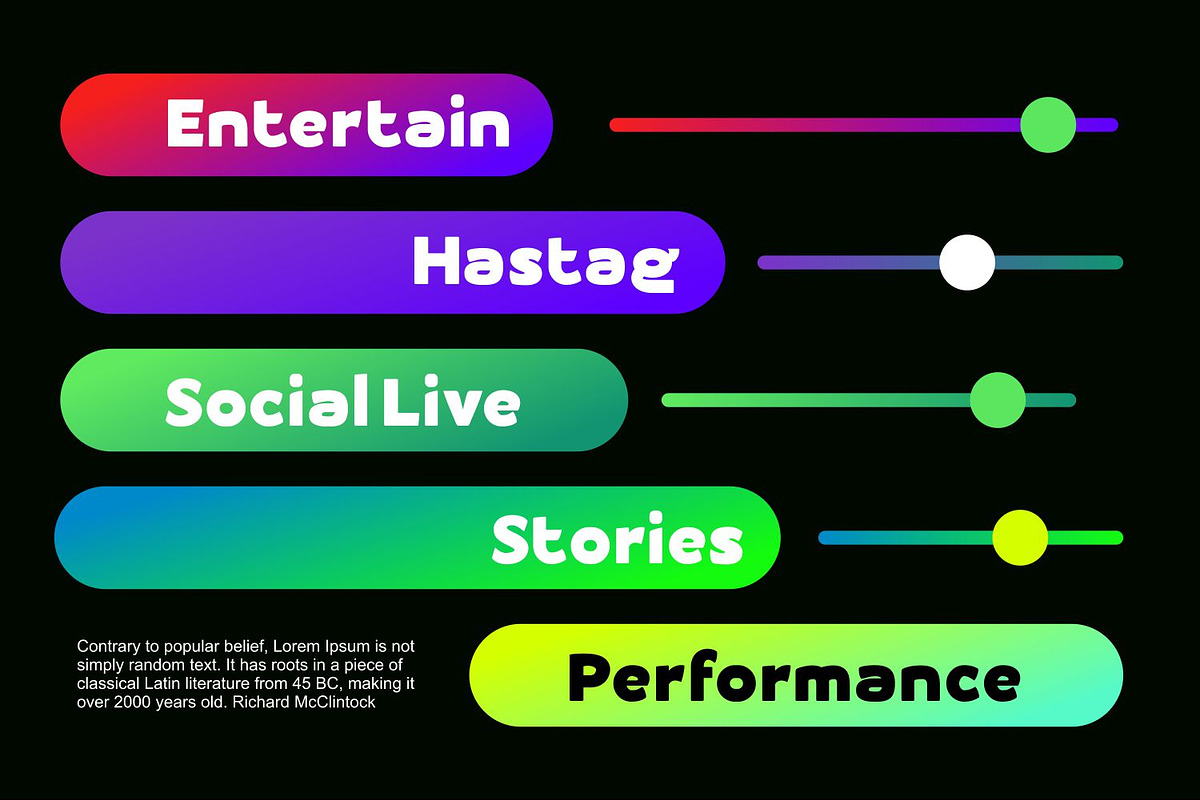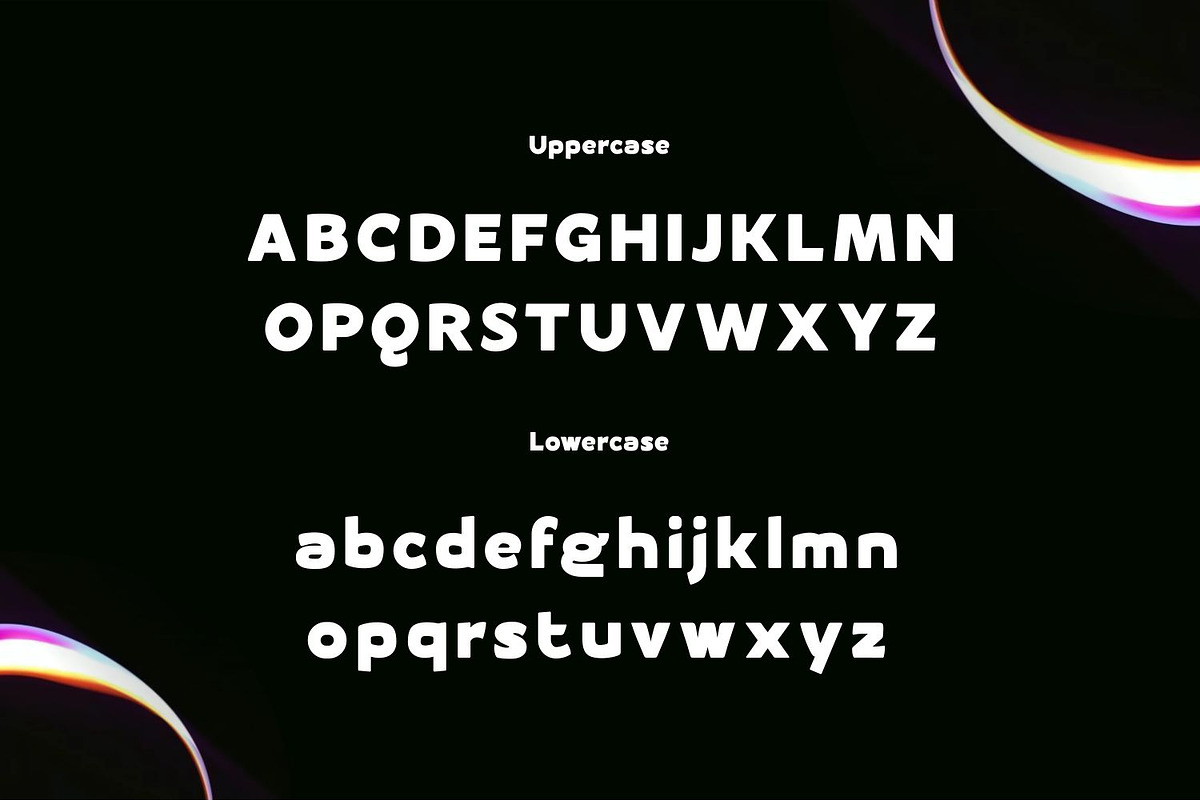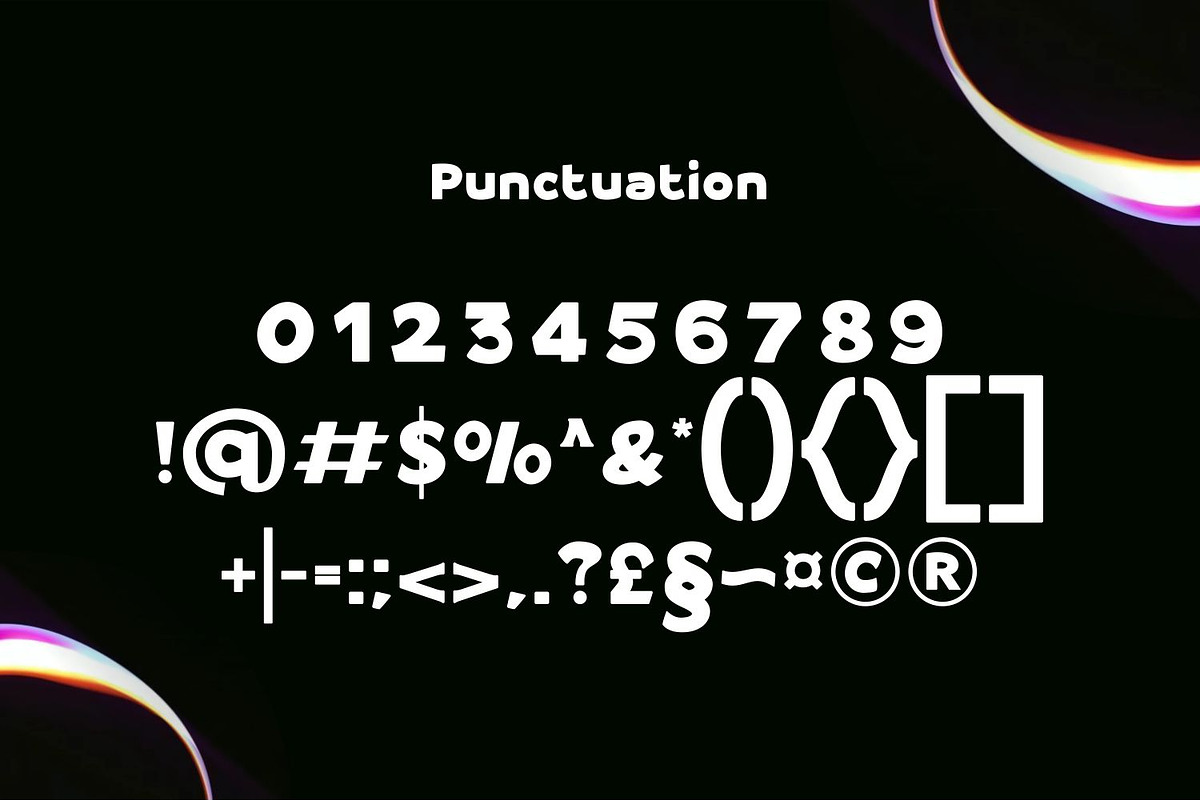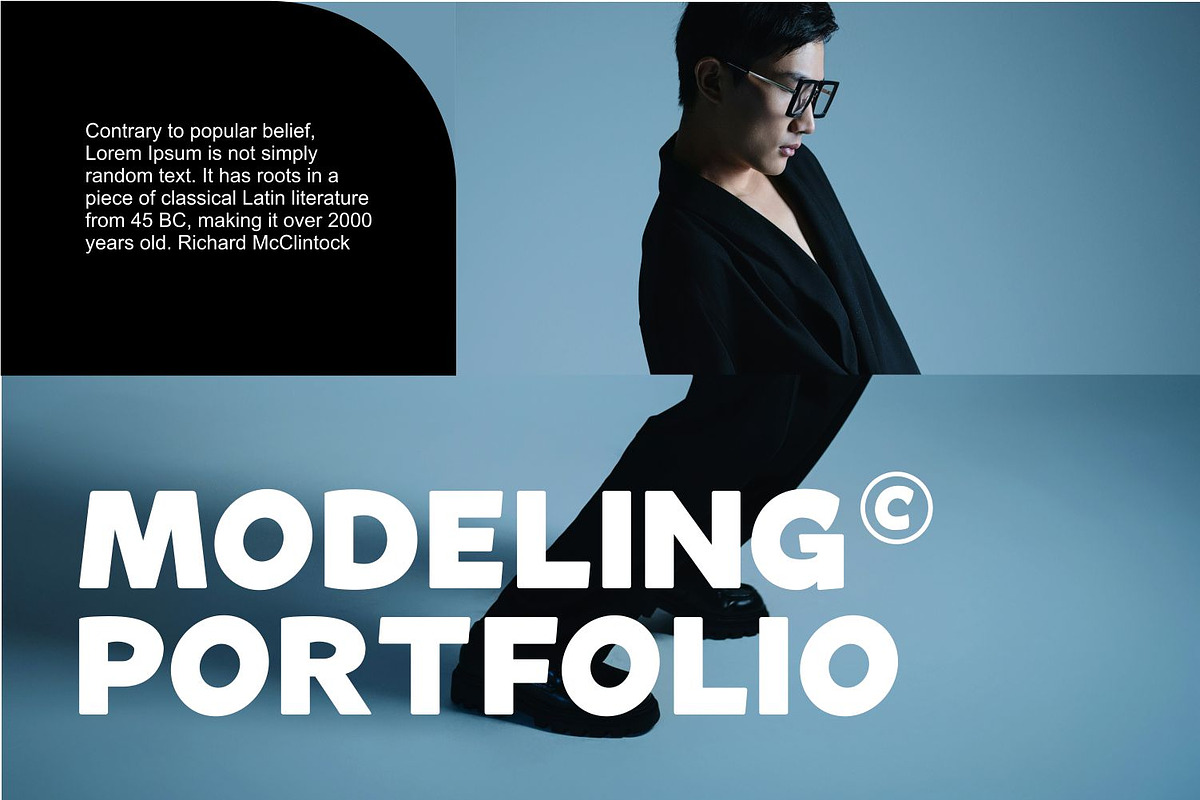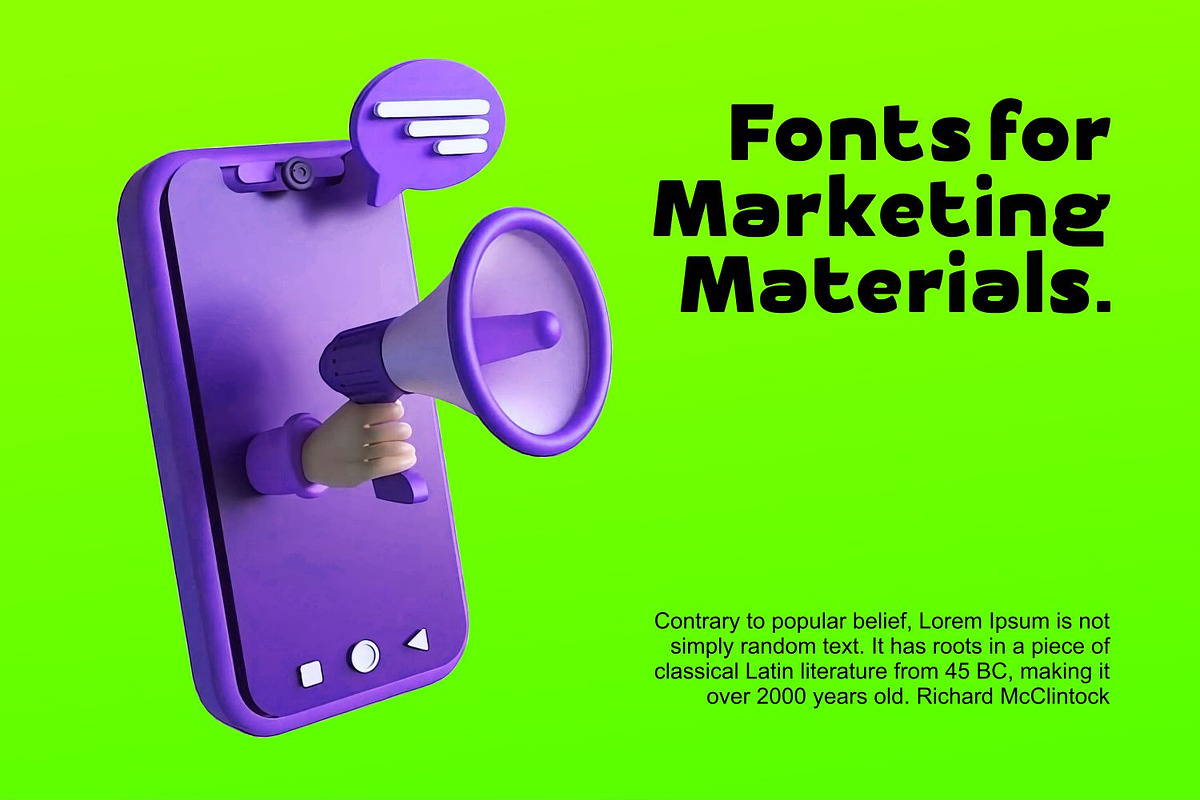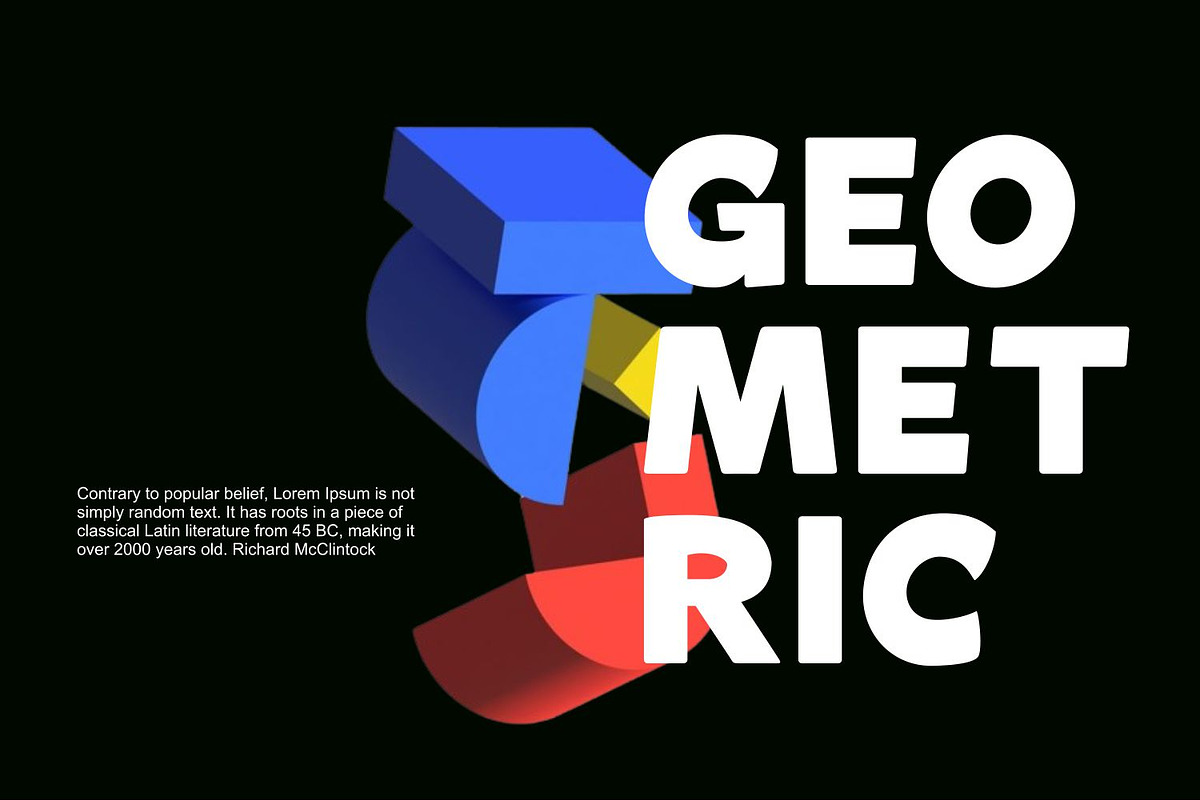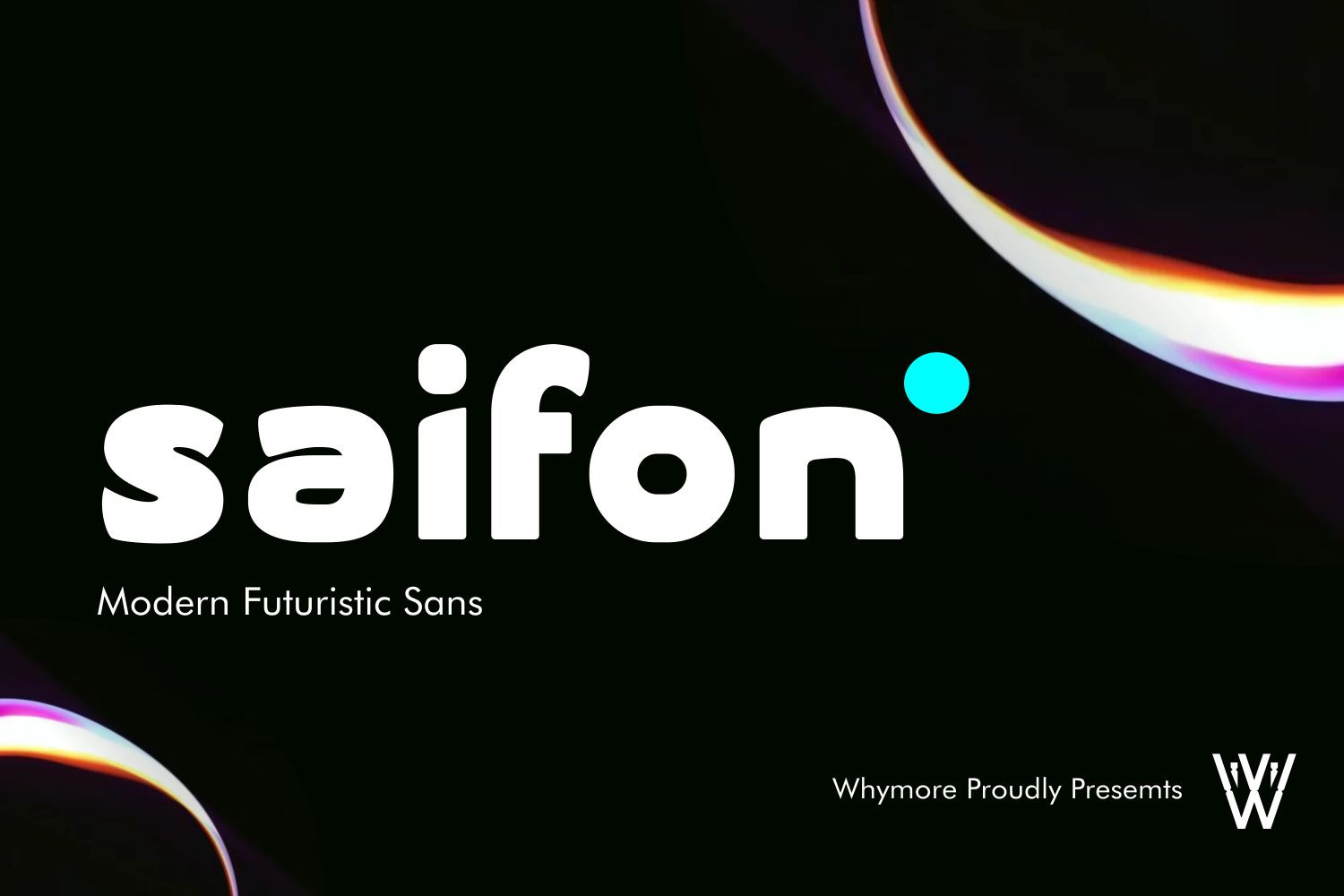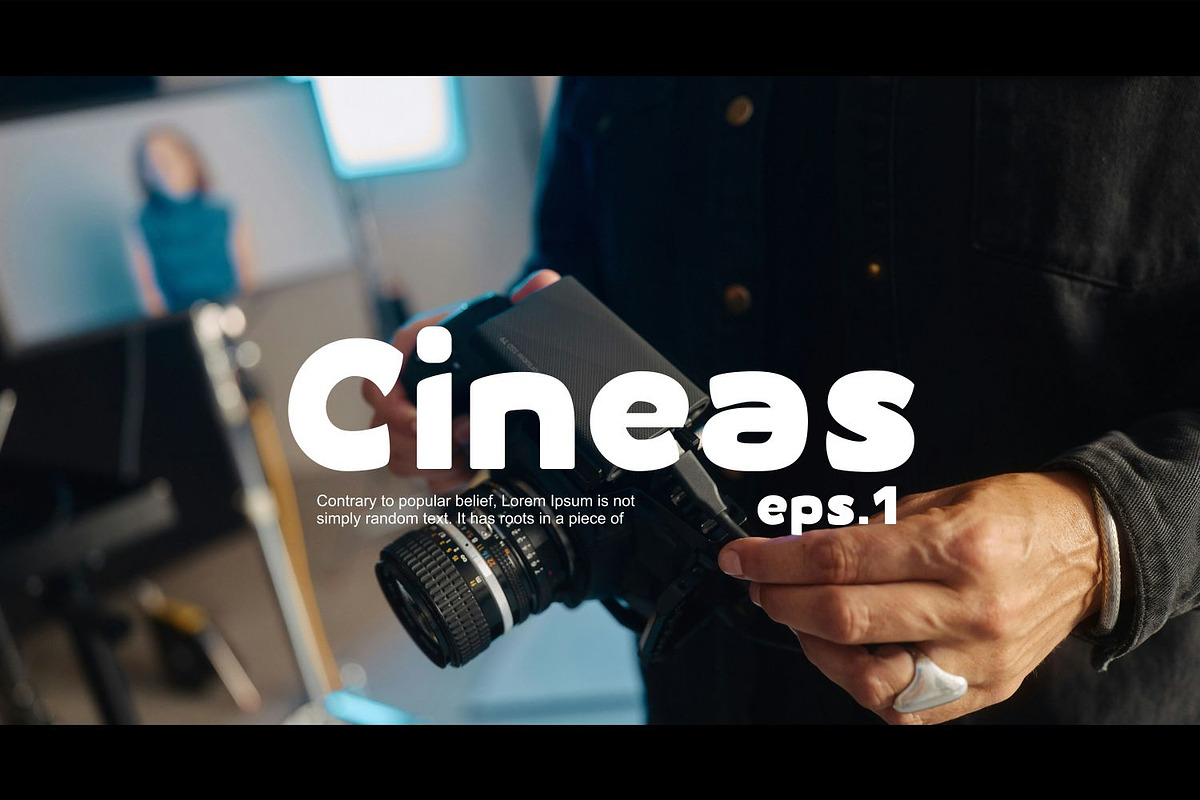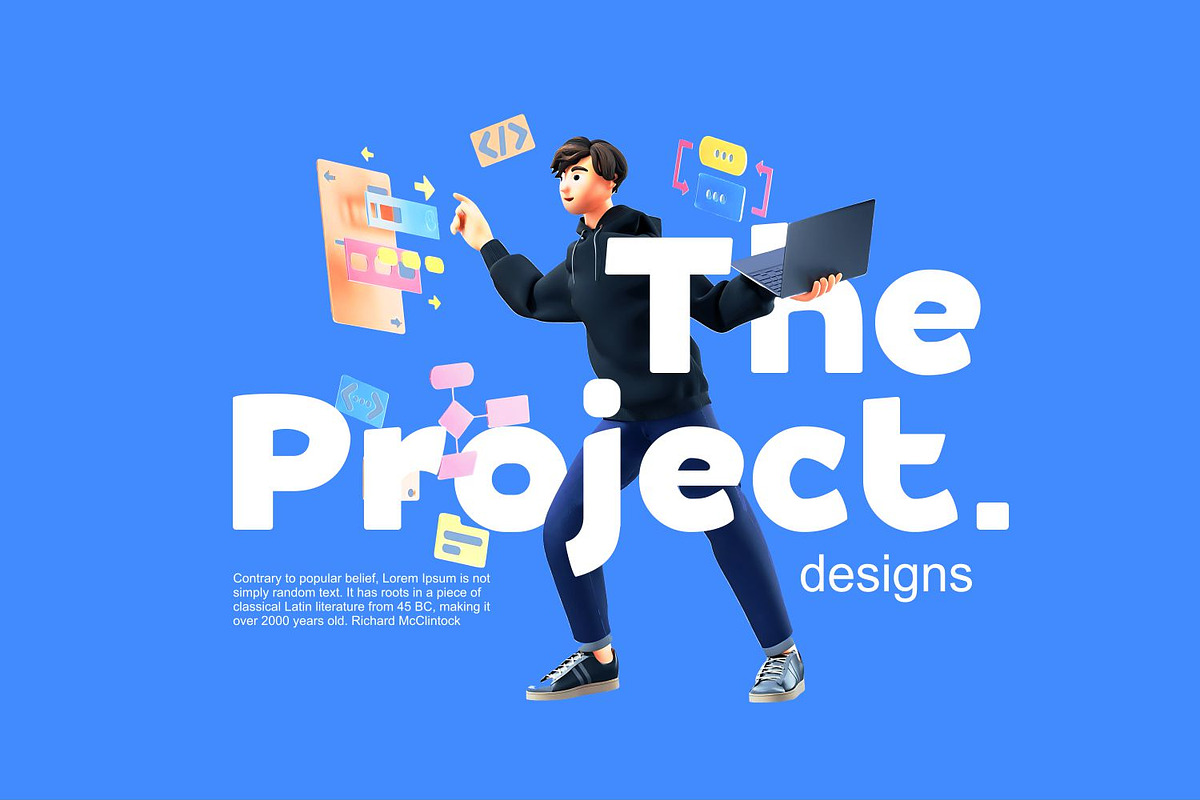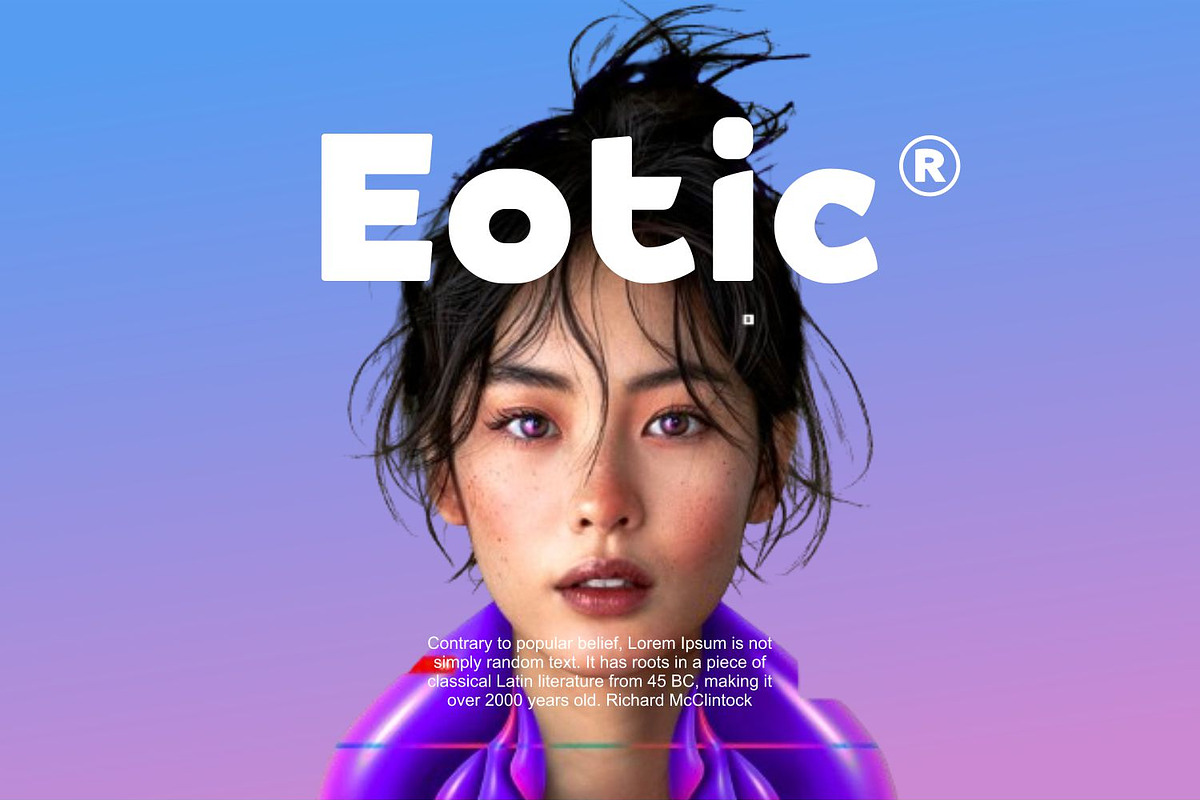
Saifon | Modern Futuristic Sans Font
Meet Saifon | Modern Futuristic Sans Font for Creators, the modern sans serif font designed for today’s innovators. Perfectly tailored for graphic designers, UI/UX designers, logo creators, web developers, and social media designers, Saifon’s bold and futuristic style empowers your projects with professionalism and creativity.
Its clean lines and smooth curves make it ideal for branding projects, technology-driven visuals, startup pitches, and video content creation. Whether you're crafting a logo, big title, poster, or social media campaign, Saifon delivers unmatched versatility and style.